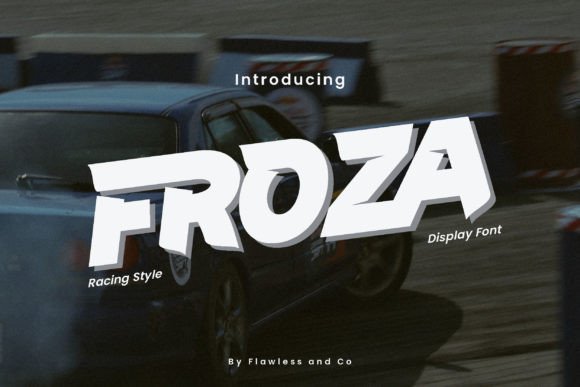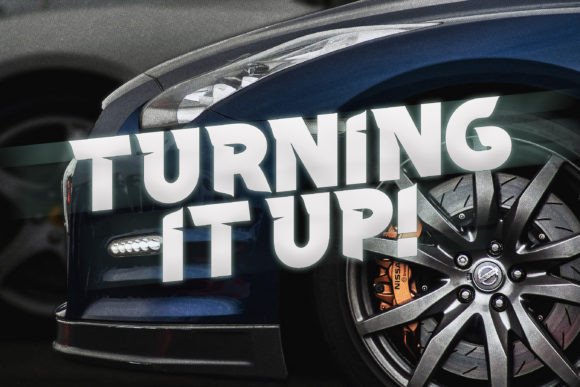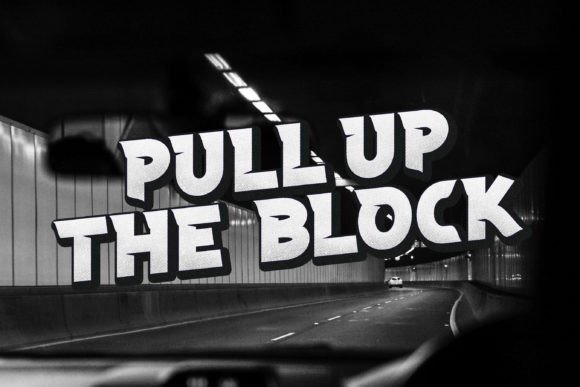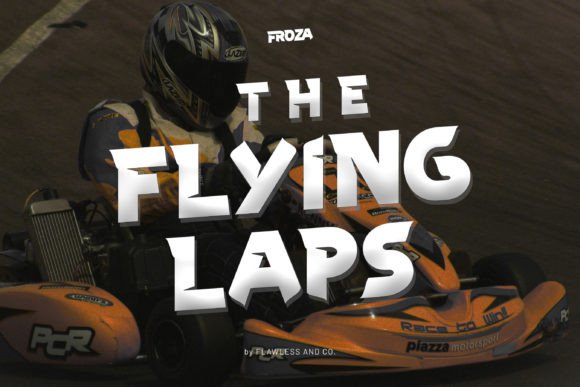
Froza Font
About the Froza Font
Elevate your designs with Froza Font, a font that combines sophistication with readability. Introducing Froza – a dynamic and powerful display font that captures the essence of speed, intensity, and adrenaline in the world of racing. With its bold and sleek letterforms, Froza is designed to make a lasting impact and evoke the excitement of high-speed races. Froza showcases a strong and edgy design that reflects the aesthetics of motorsports. Its sharp angles, sleek lines, and distinctive letterforms exude a sense of speed and movement, making it perfect for race car branding, racing event posters, sports apparel, and any design that requires a racing-inspired typographic element.